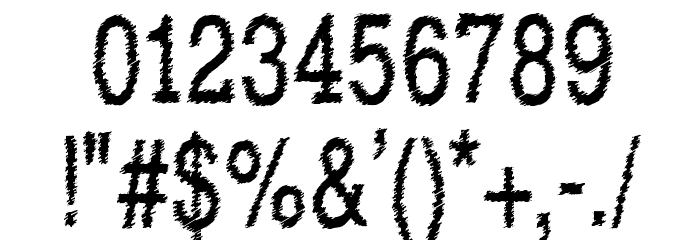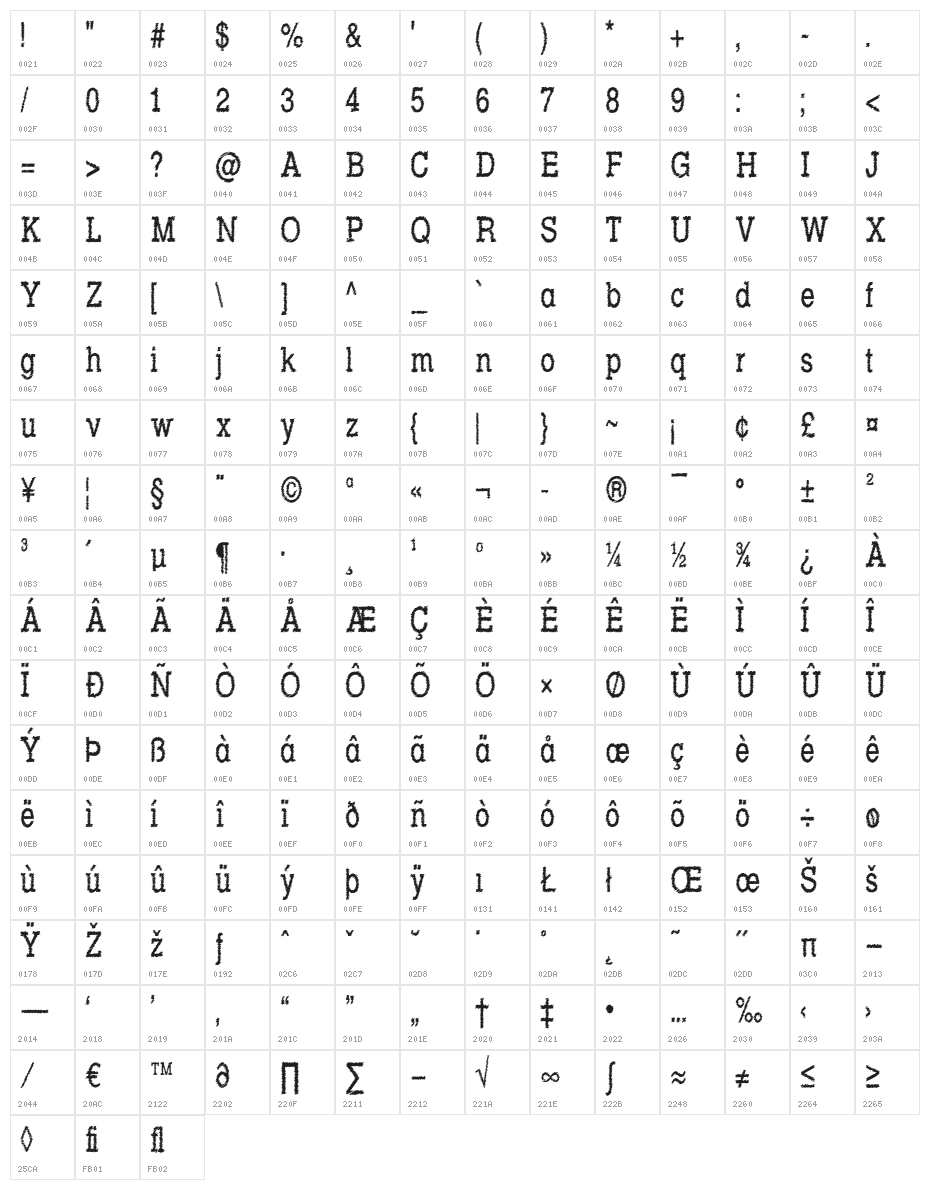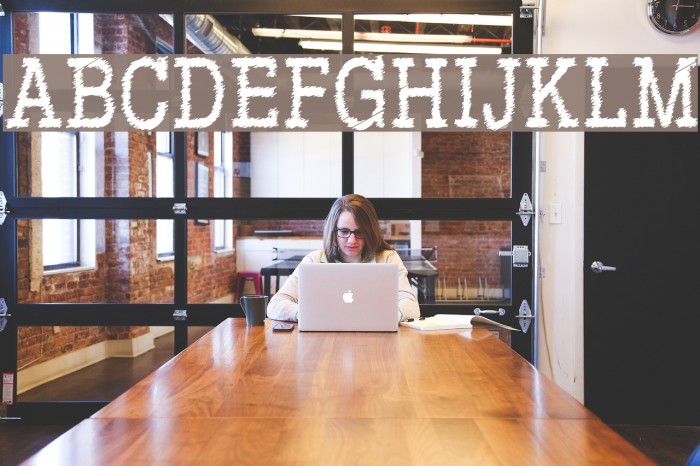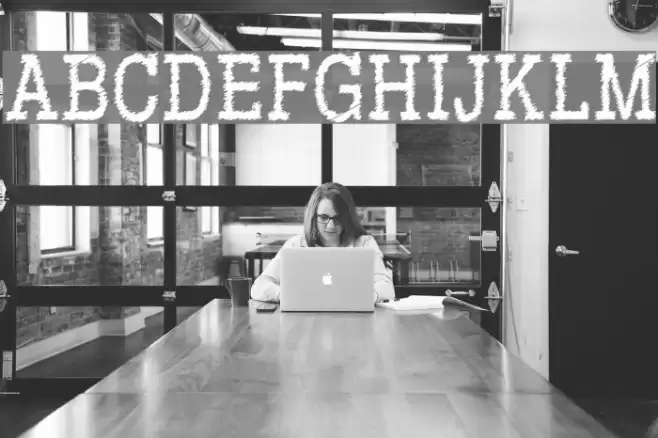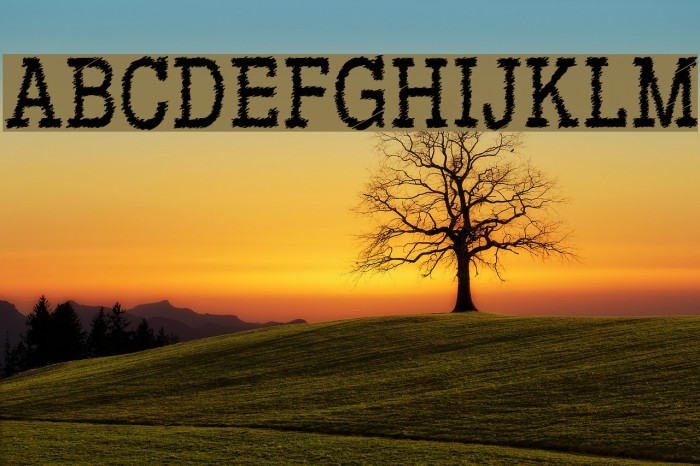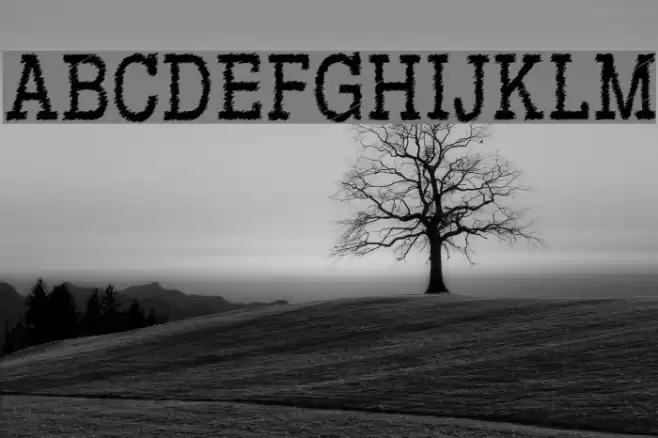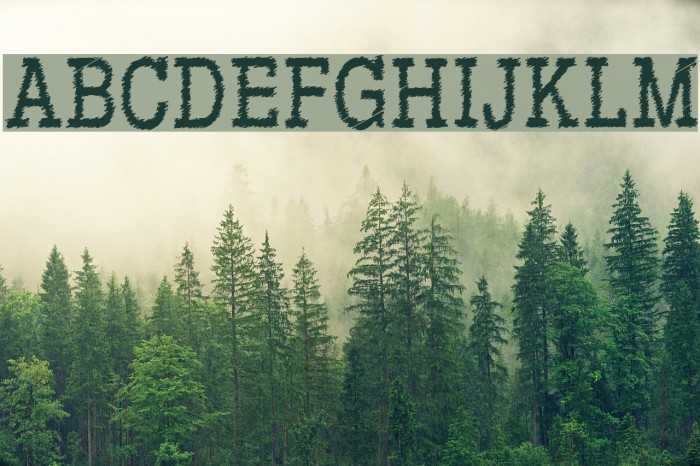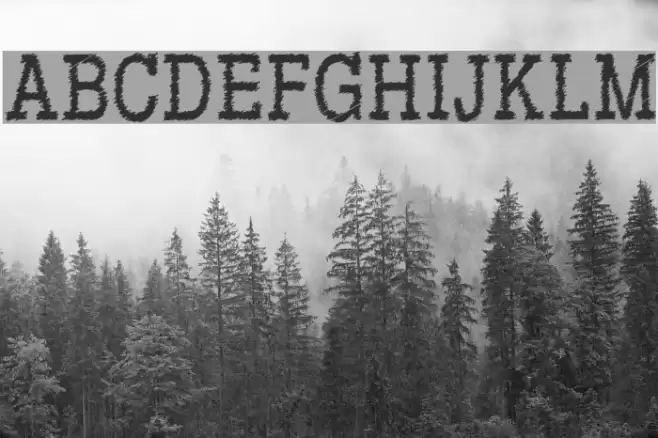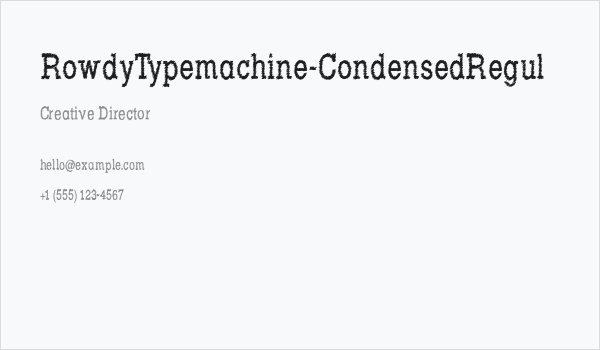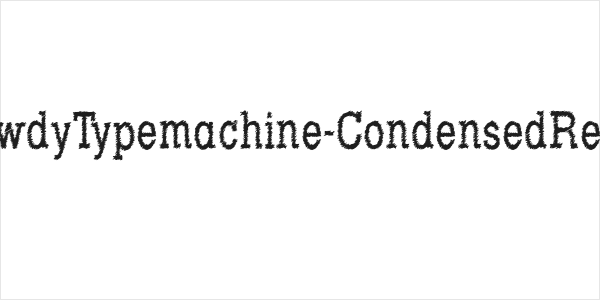
RowdyTypemachine-CondensedRegul Font
RowdyTypemachine-CondensedRegul Description
This font features a rugged, textured appearance that mimics the look of distressed or worn-out typewriter text. The characters are condensed, giving them a compact and efficient use of space, while maintaining a bold presence. The uppercase and lowercase letters, along with numerals and special characters, all share this distinctive, rough-edged style. The font's unique texture adds a vintage or grunge aesthetic, making it suitable for projects that require a touch of character and authenticity. Its condensed form allows for more text to fit in a limited space without compromising readability.
| Proposed Projects | Ideal for poster designs, album covers, branding projects, and any creative work that benefits from a vintage or distressed look. |